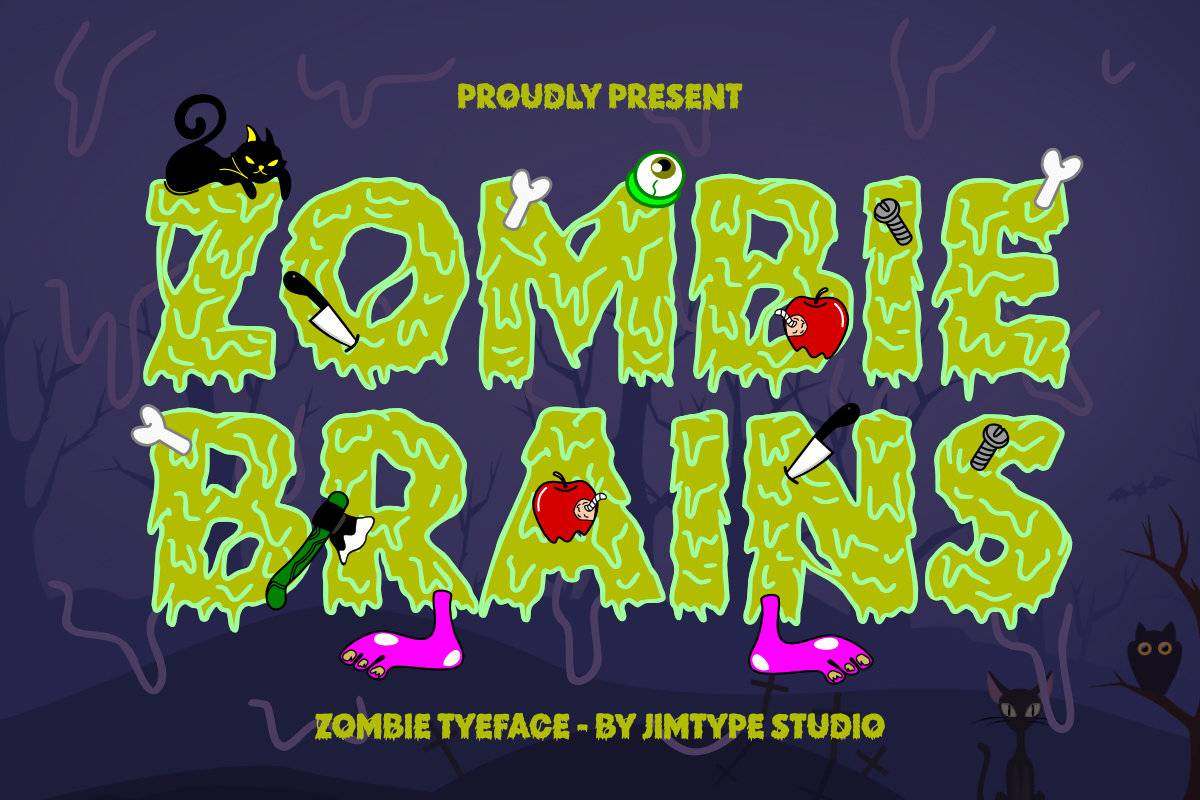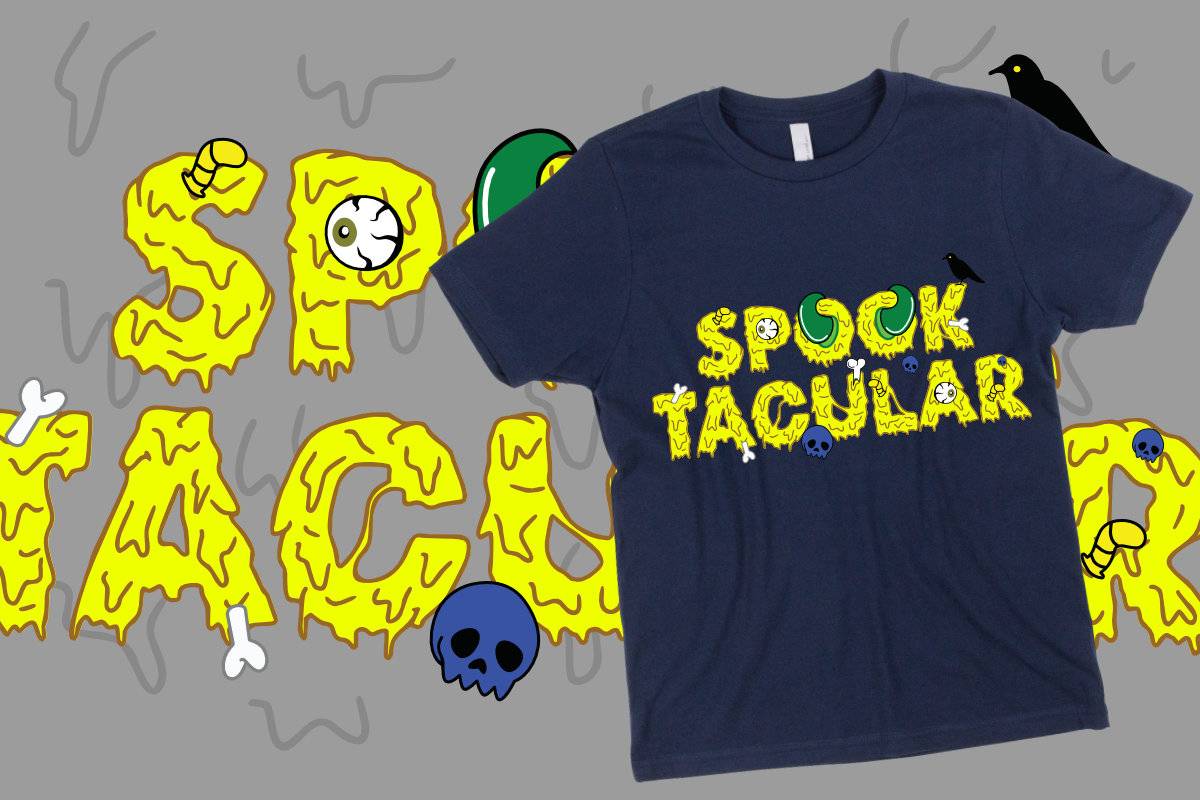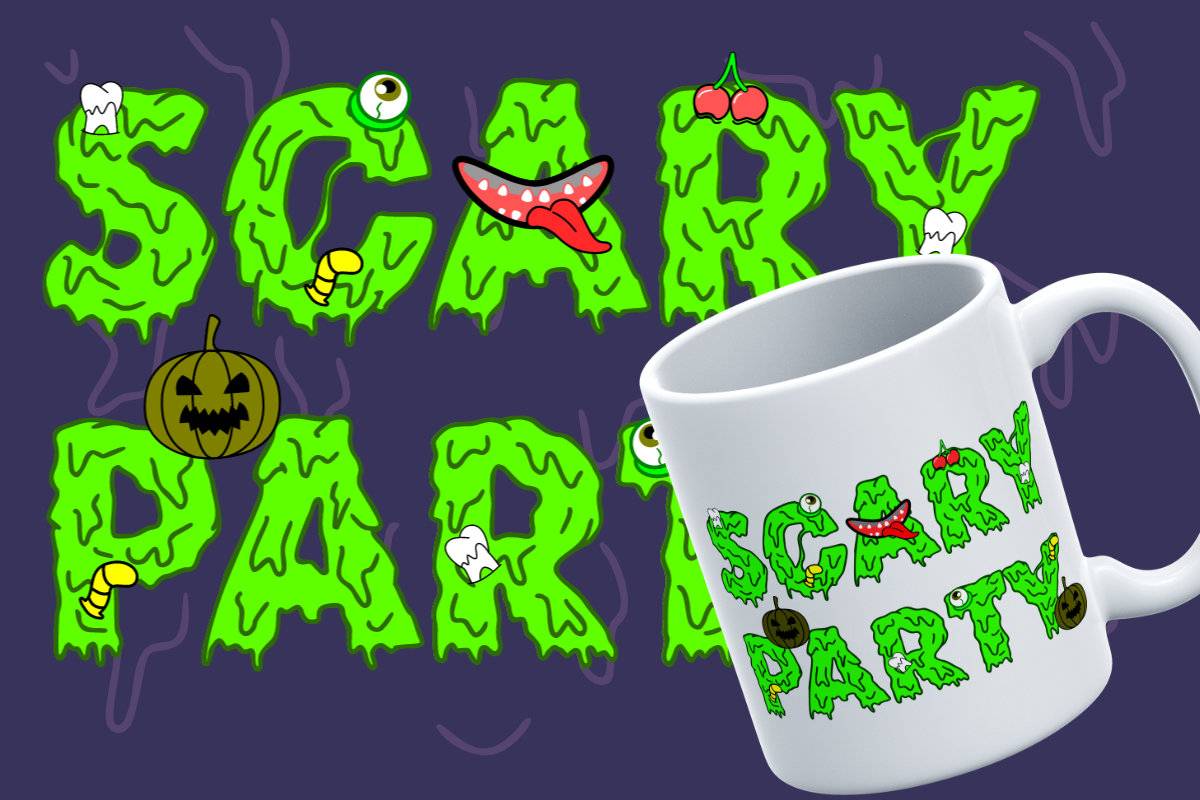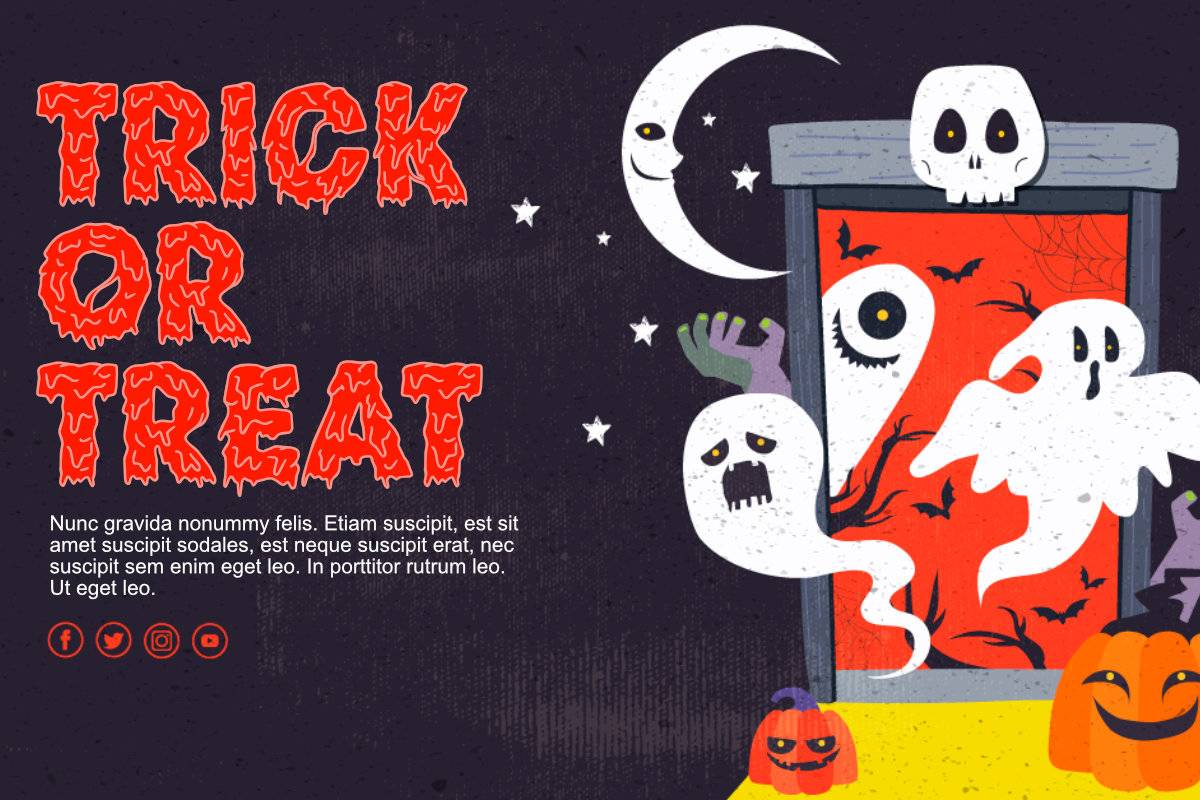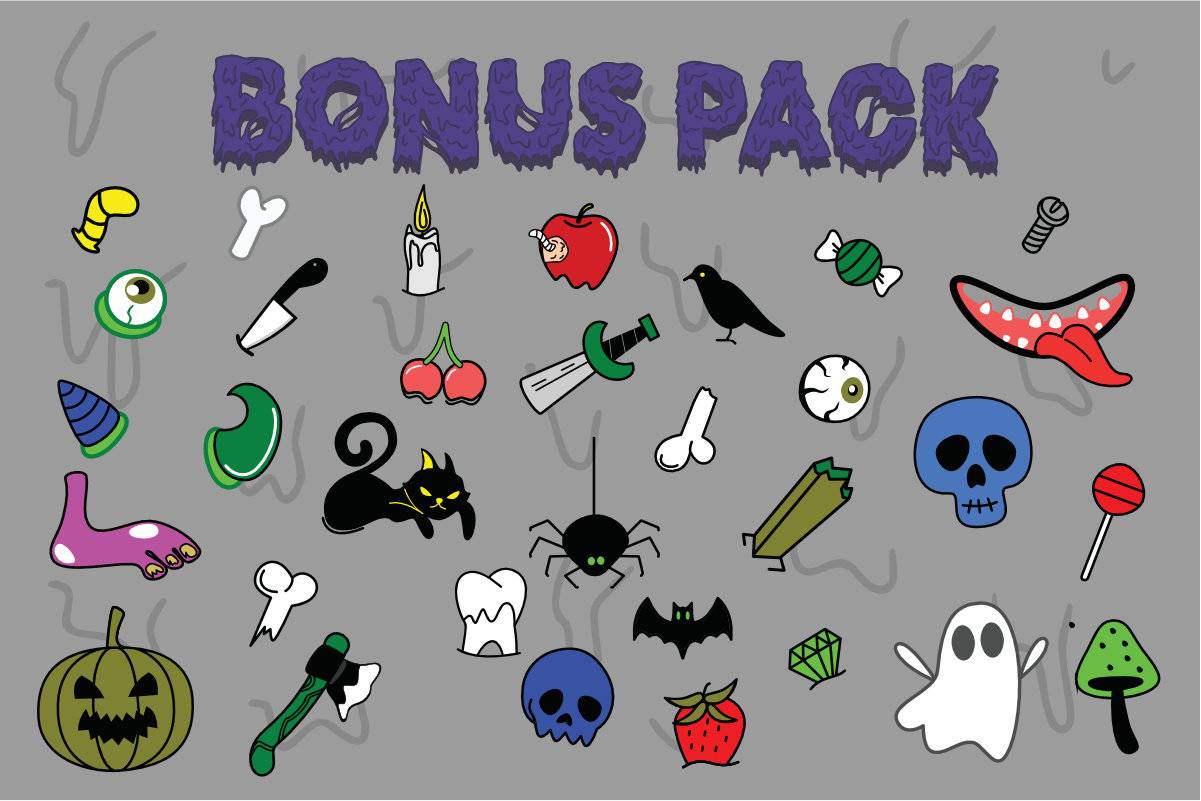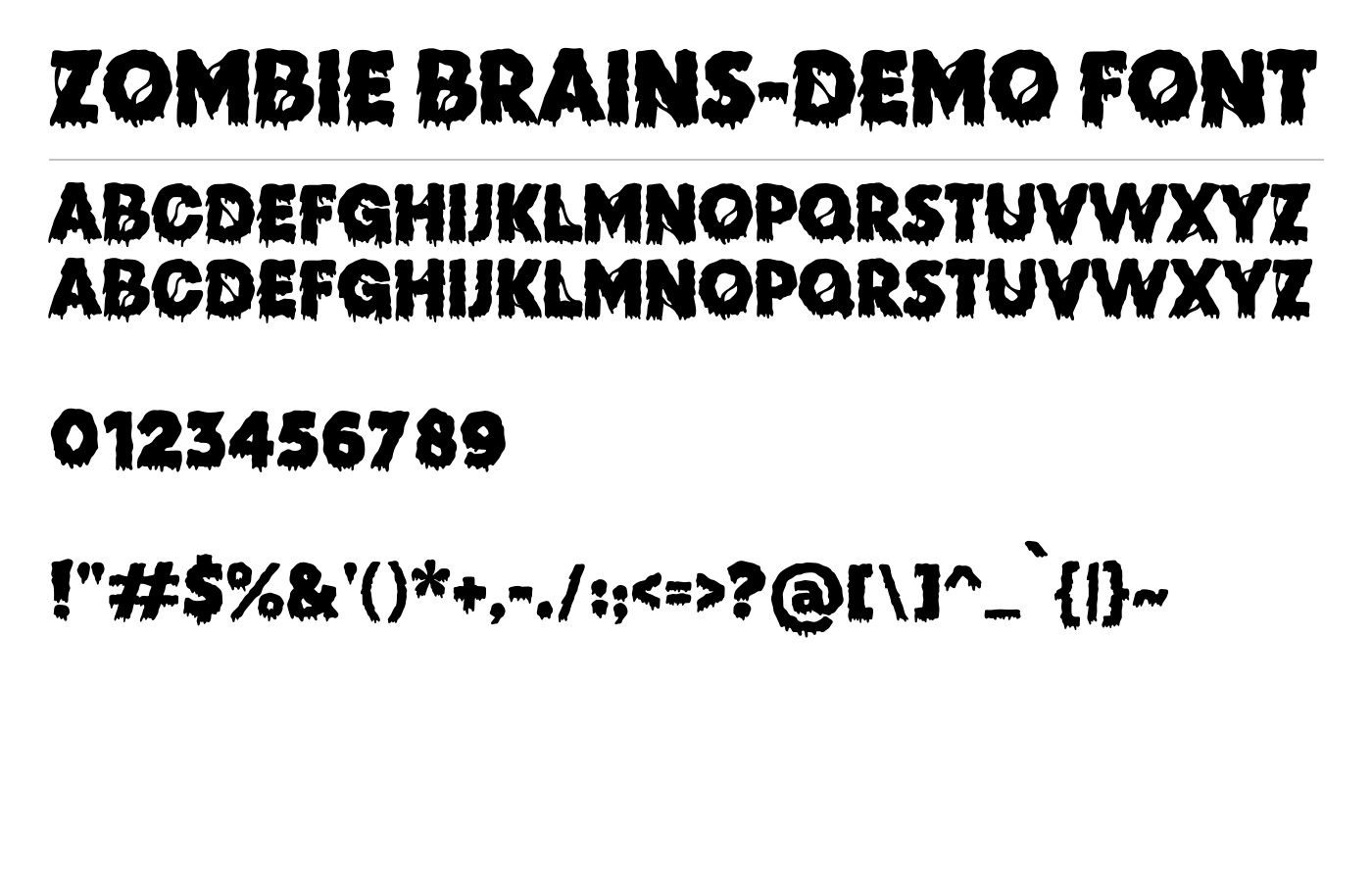
Zombie Brains is a bold, playful display font with a rough, dripping texture that evokes a spooky, horror-themed vibe. Its chunky, uppercase letters with irregular edges make it perfect for eye-catching Halloween designs, posters, and fun, themed branding where a creepy, energetic feel is desired. This font stands out in headlines and titles, instantly creating a bold, eerie atmosphere.
| Font family | Zombie Brains Font |
| Release date | 2022-08-24 |
| Designer | Jimtype Studio |